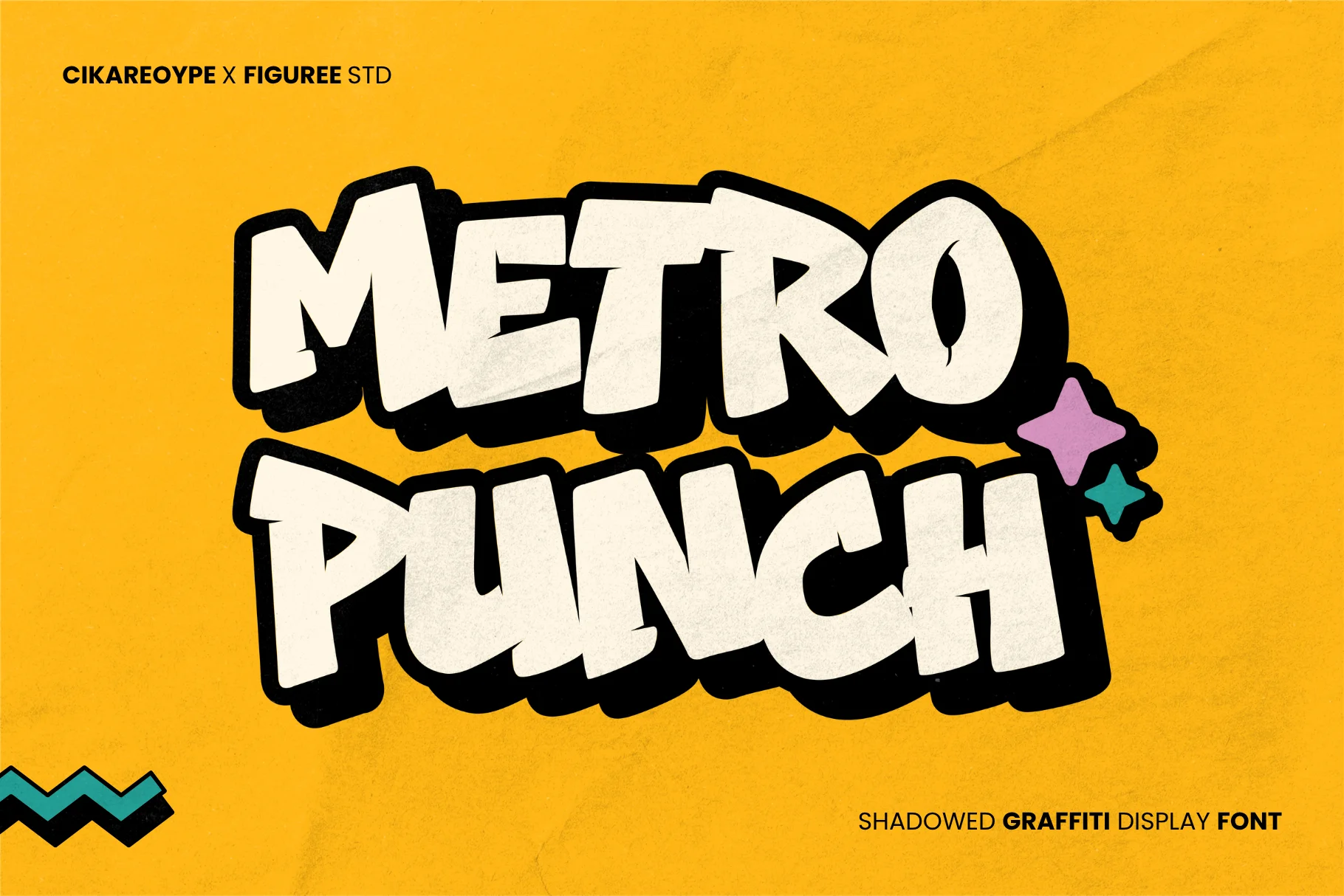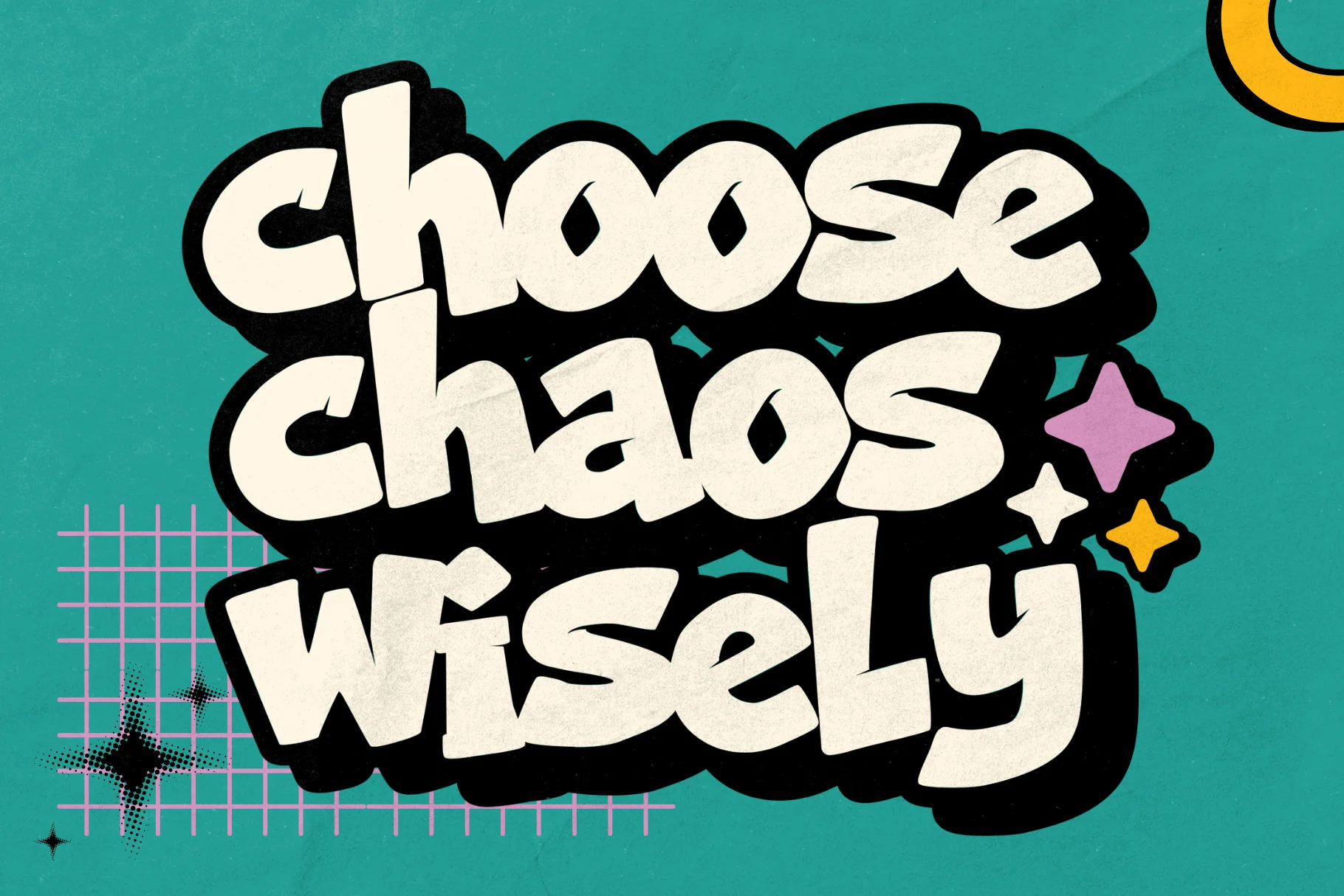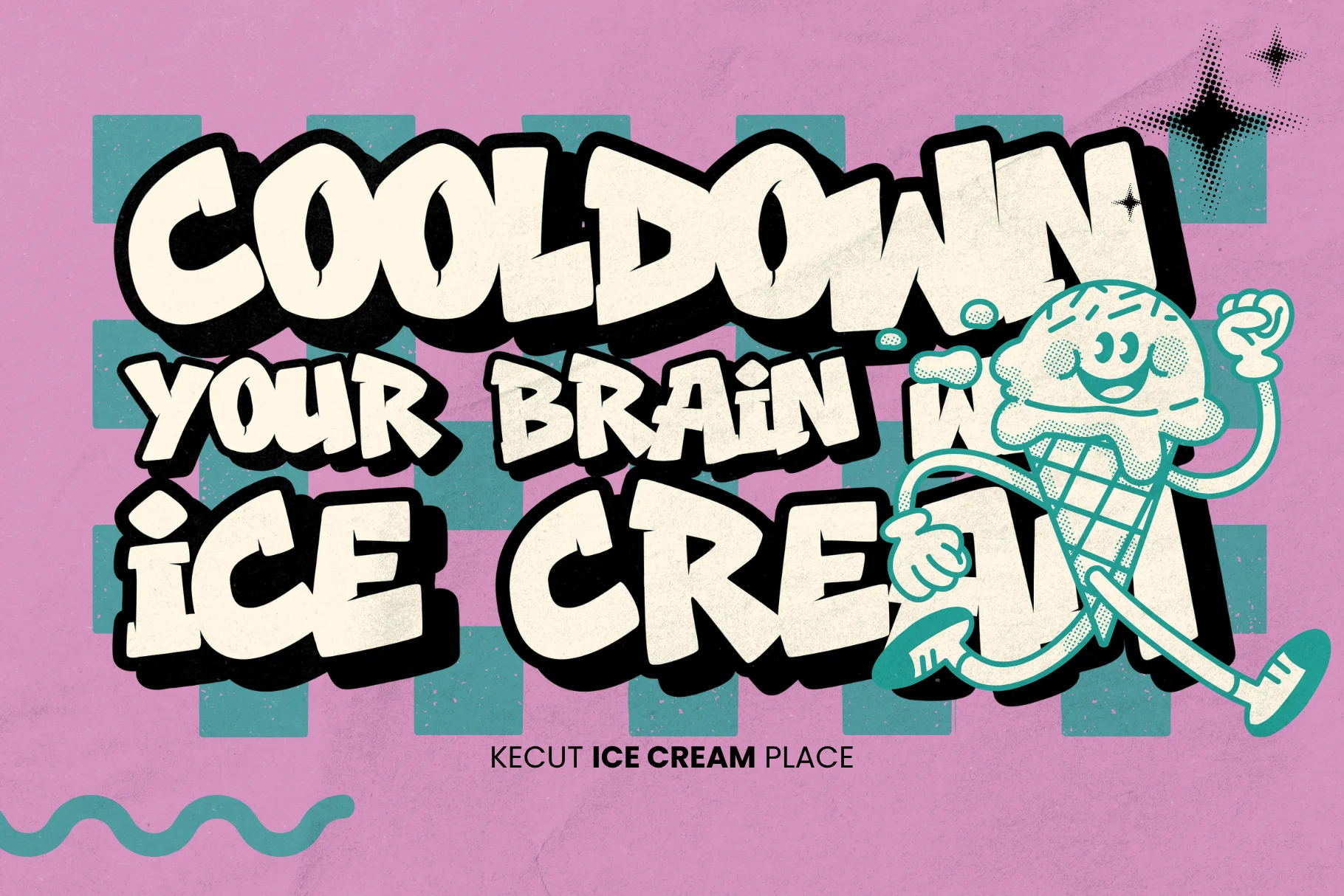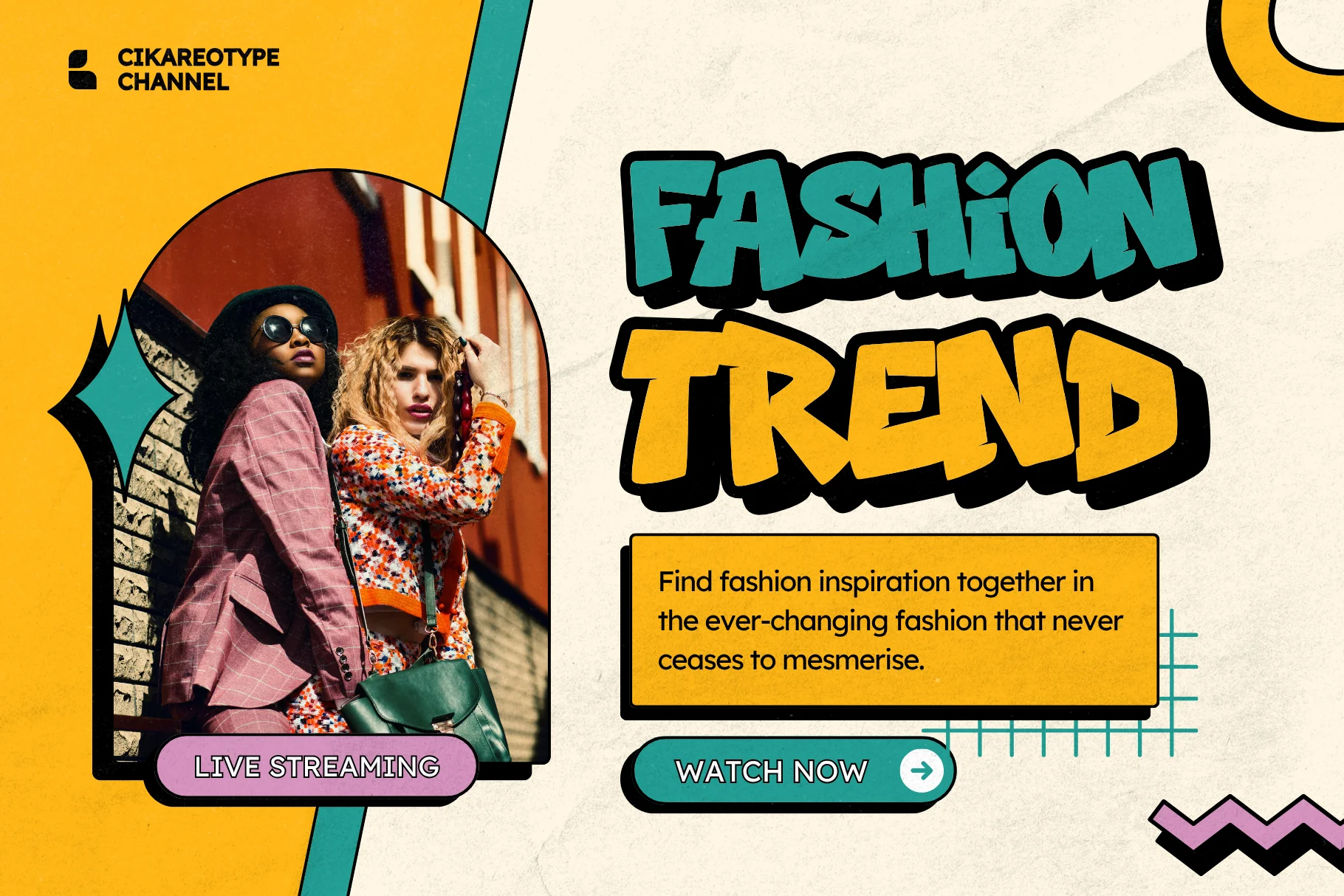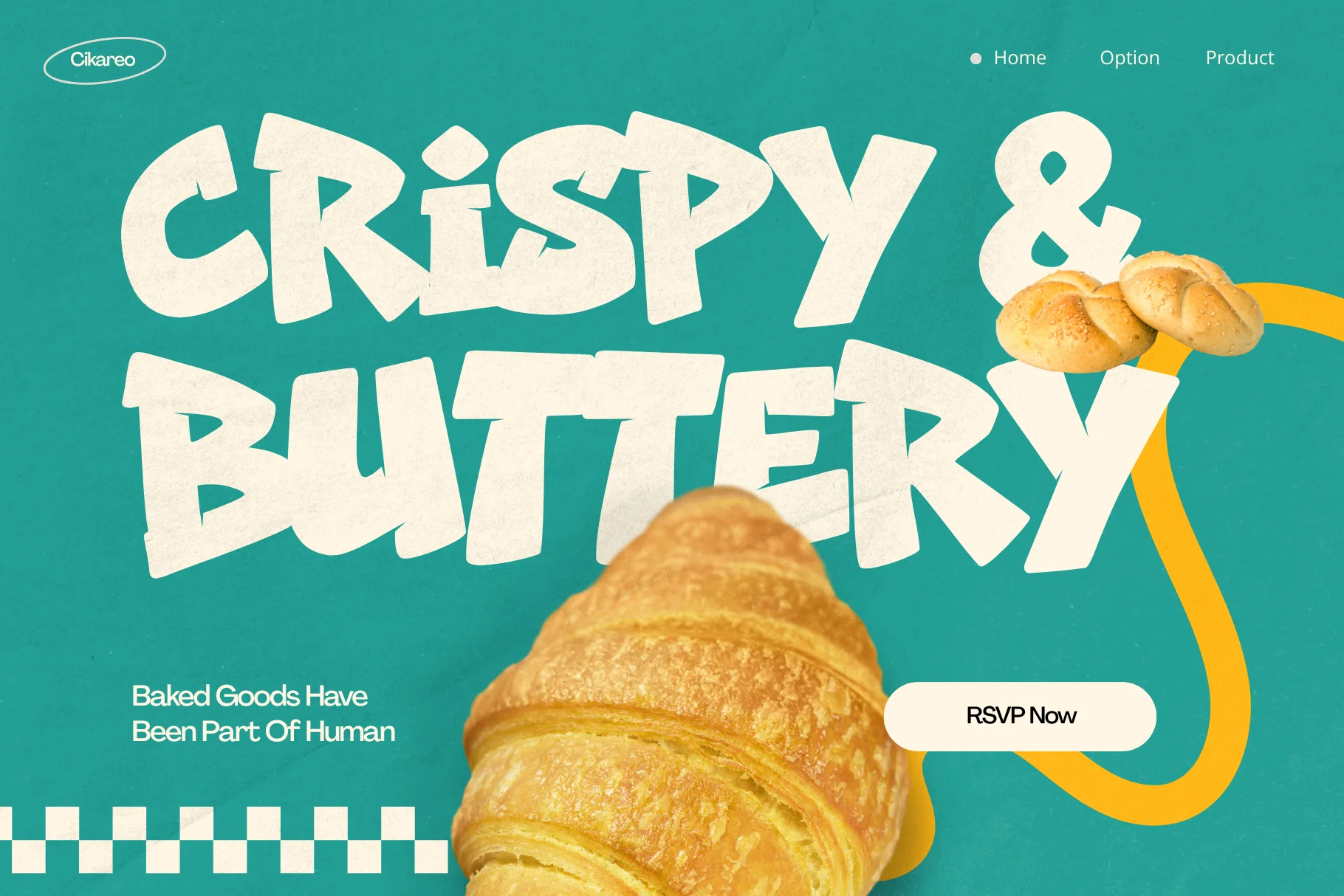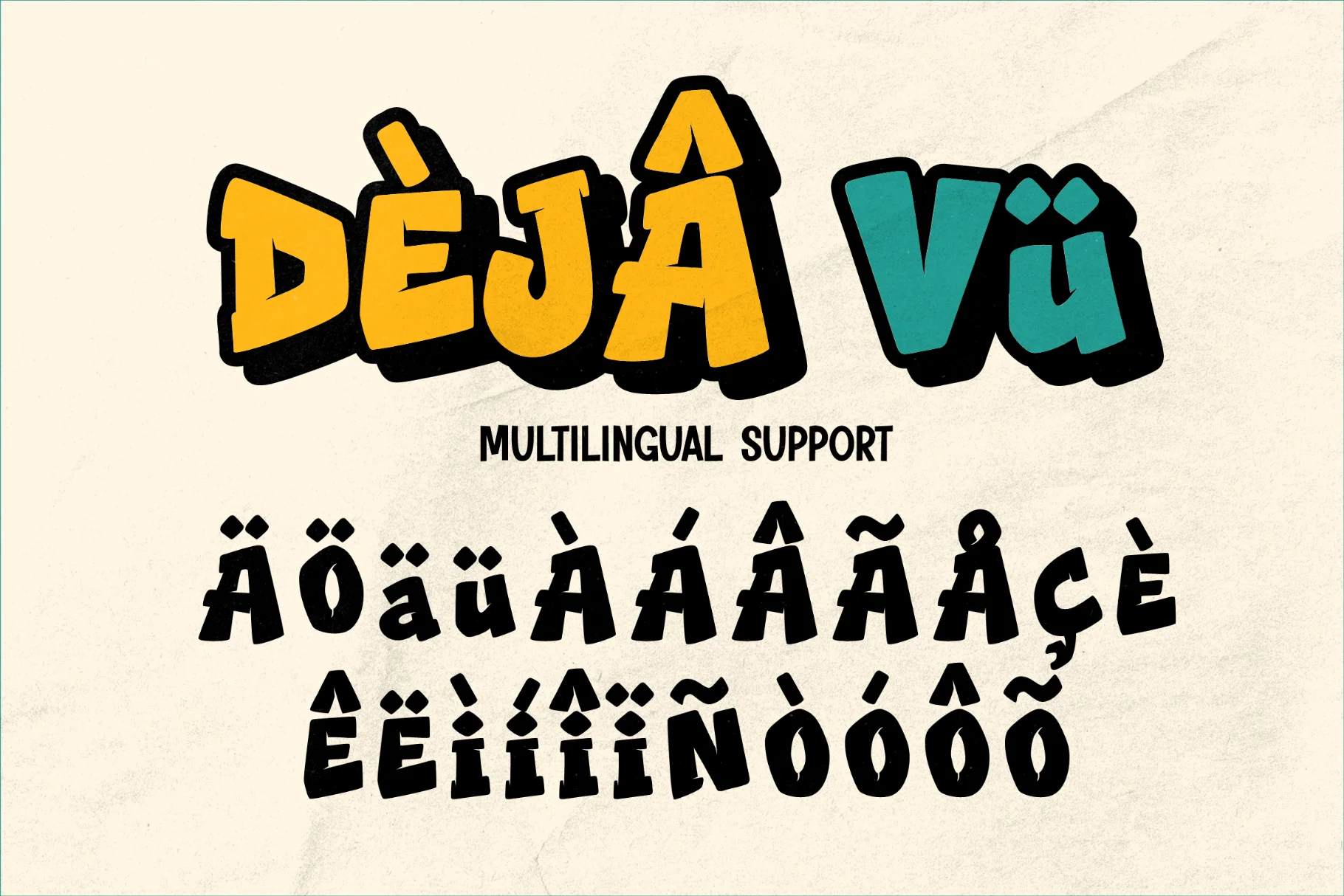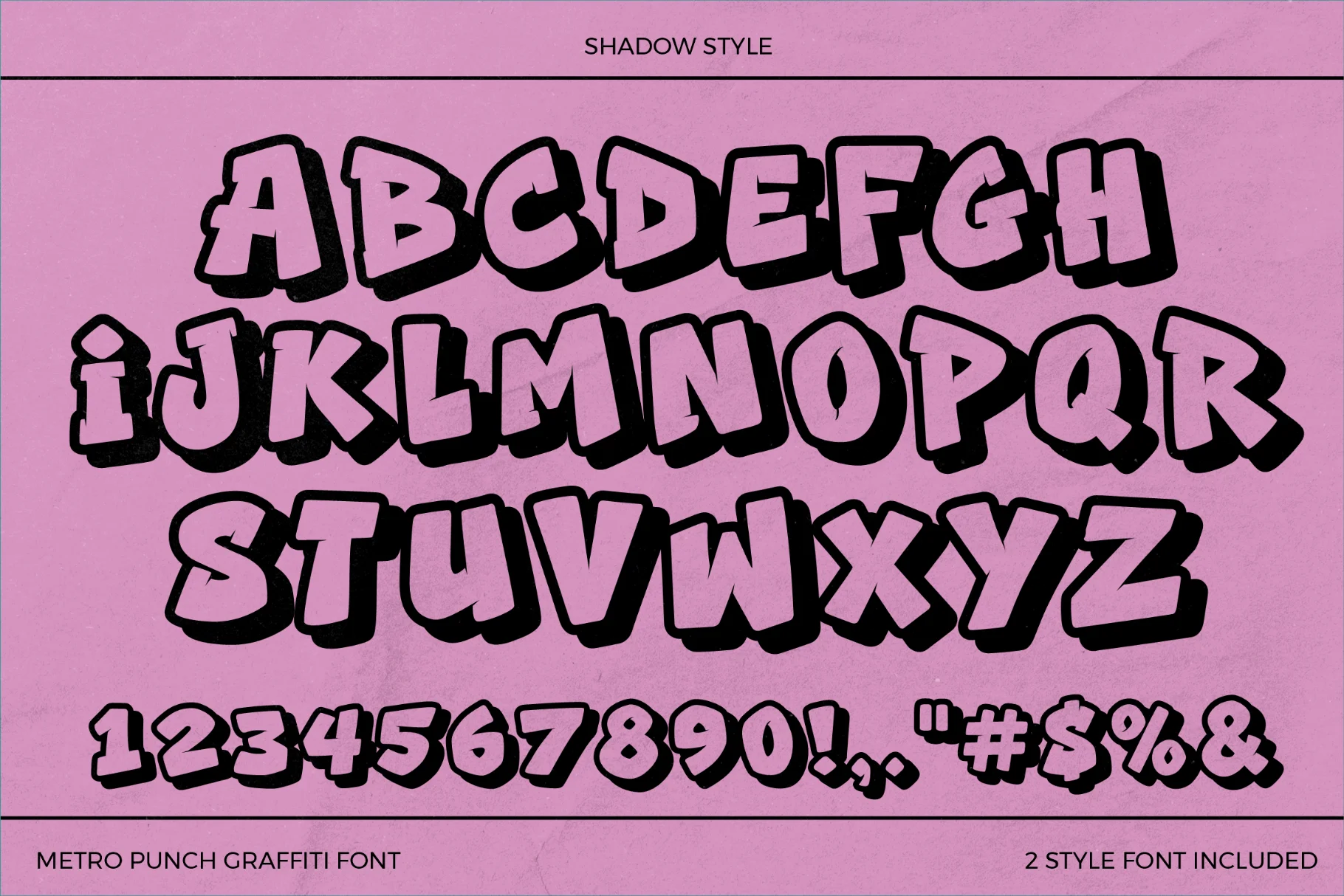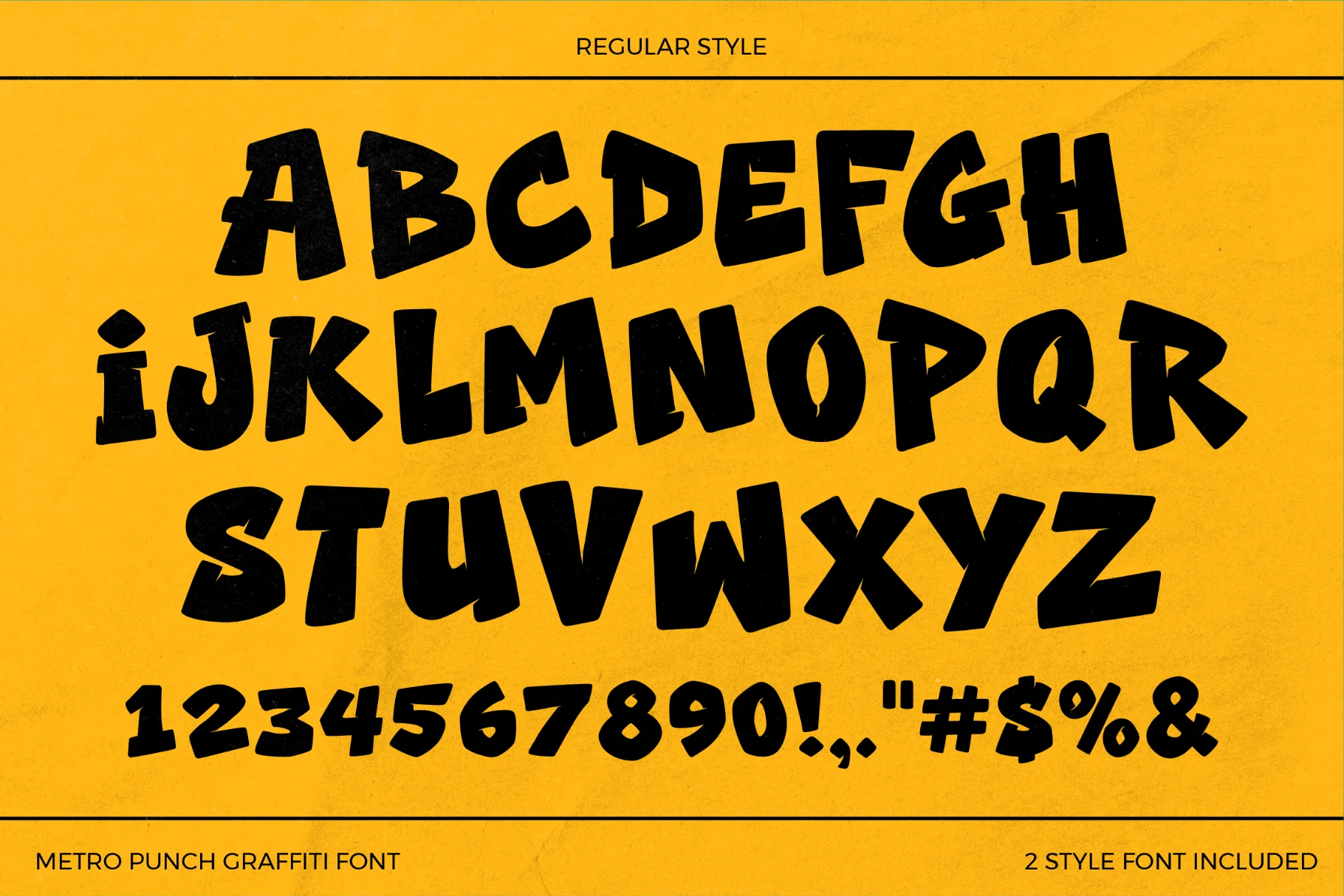
Metro Punch
Metro Punch blends retro graffiti energy with bold shadowed lettering for posters, streetwear, music artwork, merchandise, branding, and urban graphics.
• Retro Street Character
• All Caps Display Typography
• Multiple Shadow Styles
• Streetwear & Graphic Applications
About Metro Punch
Metro Punch is a retro shadow graffiti font built around bold urban energy and nostalgic street lettering. Its punchy display character combines a graffiti-inspired attitude with a vintage shadow treatment, creating typography that feels expressive, raw, and visually layered.
Designed to command attention, Metro Punch works naturally across artwork that needs a strong street-inspired voice. Its retro character makes it suitable for headlines, posters, apparel graphics, music artwork, merchandise, and other display-focused compositions where typography becomes part of the visual statement.
Retro Street Character
Metro Punch brings together the rebellious spirit of graffiti lettering and the dimensional feel of classic retro display type. The shadow style adds visual depth while reinforcing its bold, nostalgic personality. Used at large sizes, the font creates a strong focal point; combined with supporting typography, it can also establish clear hierarchy without losing its distinctive character.
All Caps Display Typography
Metro Punch is designed as an all-caps display font, making it especially effective for short phrases, headlines, titles, and graphic statements. The uppercase approach gives layouts a consistent visual rhythm and helps the lettering maintain its impact across posters, branding graphics, apparel, and promotional artwork.
Multiple Shadow Styles
The type family includes the main Metro Punch style alongside Metro Punch Shadow. These two versions can be used separately or combined to create contrast, layering, and stronger typographic compositions. The shadow variation is particularly useful when you want to emphasize the retro dimensional quality of the lettering.
Streetwear & Graphic Applications
• Streetwear and apparel graphics
• Posters and event artwork
• Music artwork and album graphics
• Merchandise and sticker designs
• Bold branding and logo-style compositions
• Retro shadow graffiti style
• Bold display character
• All-caps lettering
• Numbers included
• Punctuation included
• Metro Punch main style
• Metro Punch Shadow style
• Strong dimensional visual treatment
• Urban and vintage-inspired personality
• Suitable for large-scale display typography
Why Designers Love Metro Punch
Metro Punch gives designers a recognizable visual voice without relying on complicated typographic treatments. Its retro graffiti character can establish the mood of a composition quickly, making it useful when the lettering itself needs to carry a significant part of the artwork.
The two included styles also provide flexibility in building hierarchy. The main style can create a strong headline, while the shadow version can introduce additional depth and contrast. This makes Metro Punch practical for expressive graphic systems, especially across apparel, posters, music visuals, and merchandise.
Make a Statement with Retro Graffiti Lettering
Metro Punch brings together retro typography, graffiti influence, and bold shadow lettering in a focused display font family. Its energetic personality makes it well suited to designs that call for a strong urban mood with a nostalgic edge.
Use Metro Punch for streetwear graphics, posters, music artwork, merchandise, branding, and other visual projects where bold retro graffiti typography can become a defining element of the design.